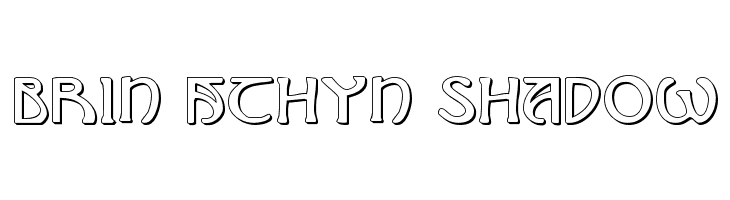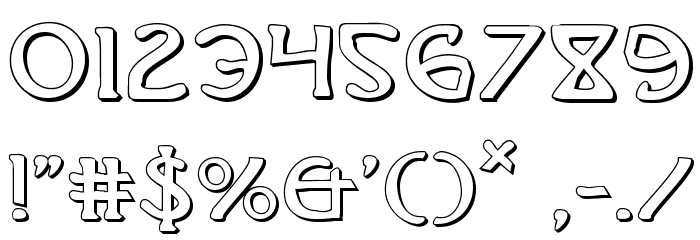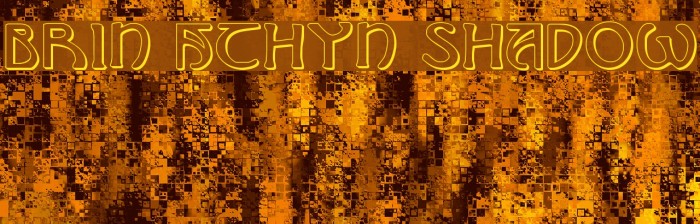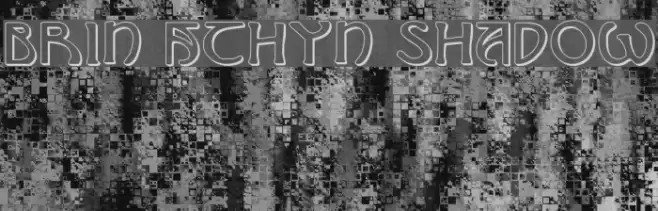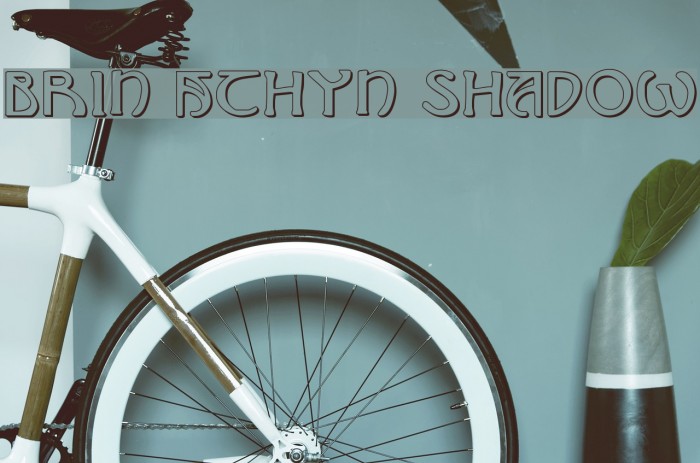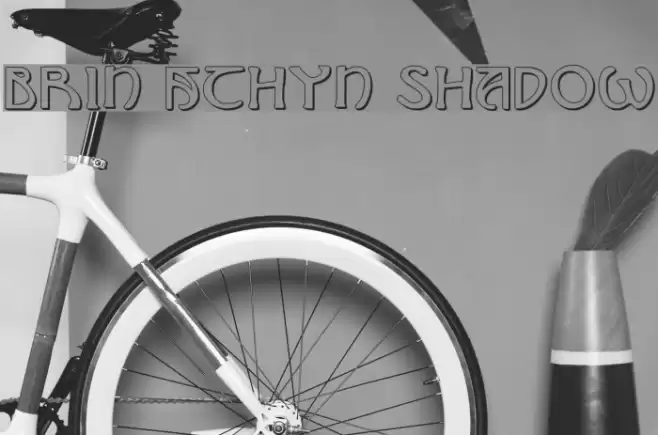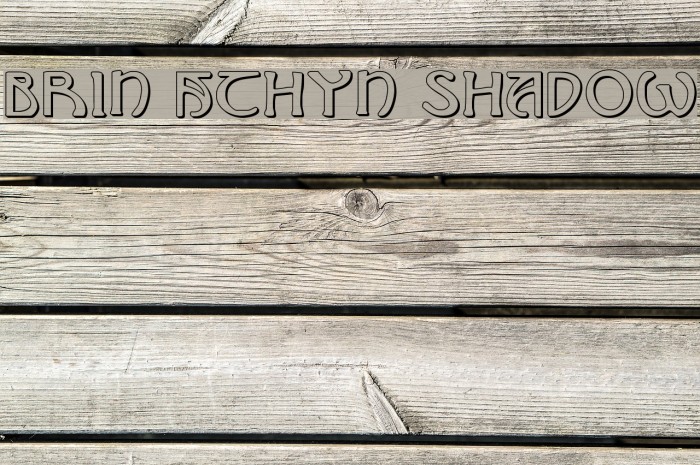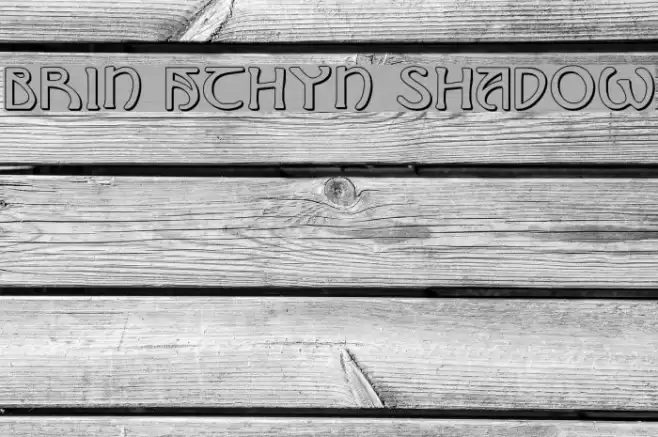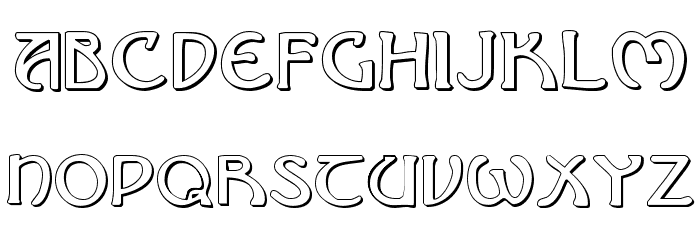
Brin Athyn Shadow Font
Brin Athyn Shadow Description
This font features a unique shadow effect that gives each character a three-dimensional appearance. The letters are bold and have a playful, decorative style with rounded edges and a consistent stroke width. The shadowing adds depth and makes the characters stand out, creating a dynamic and engaging visual effect. The uppercase and lowercase letters maintain a uniform style, while the numerals and special characters are designed to complement the overall aesthetic. This font is ideal for projects that require a bold and eye-catching typeface with a touch of whimsy.
| Proposed Projects | Ideal for posters, logos, children's books, and creative branding projects. |